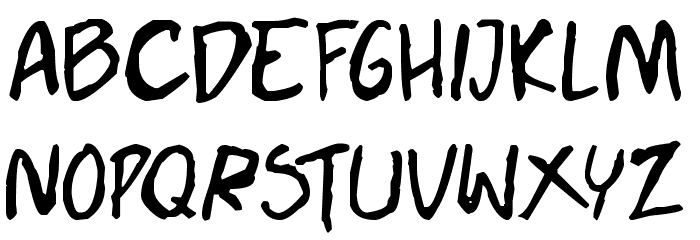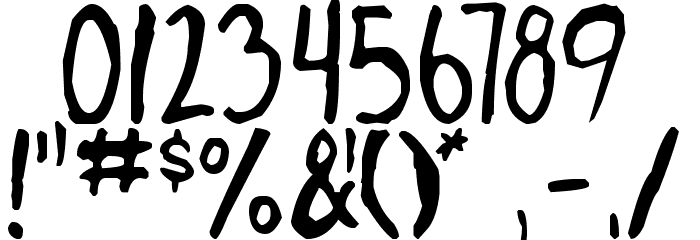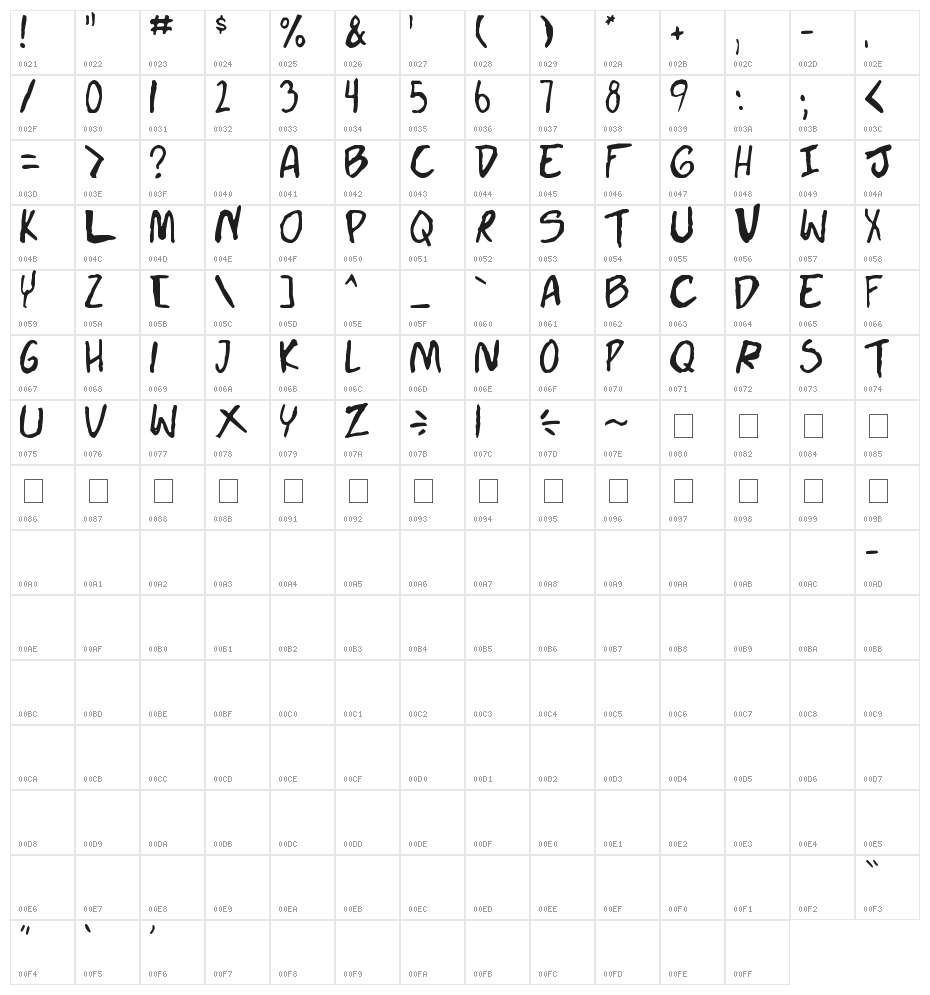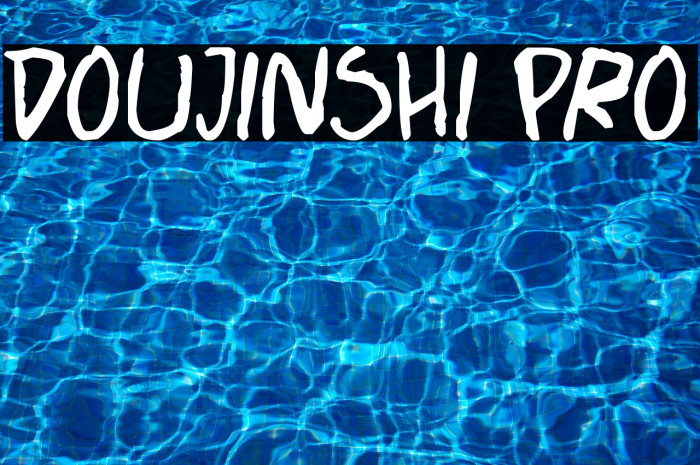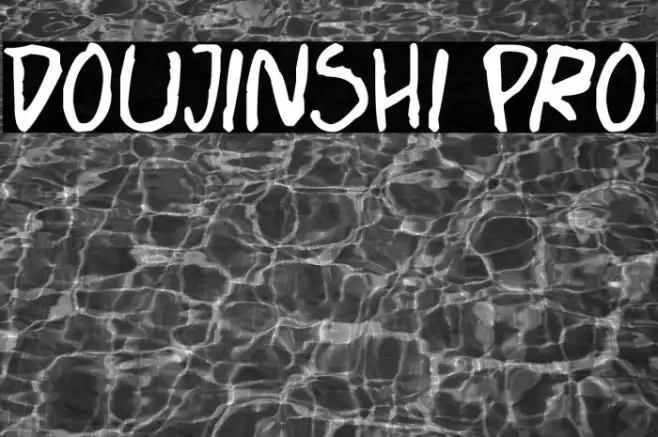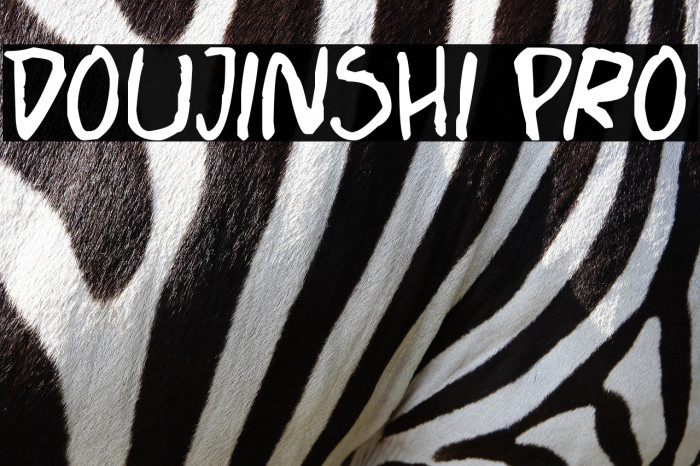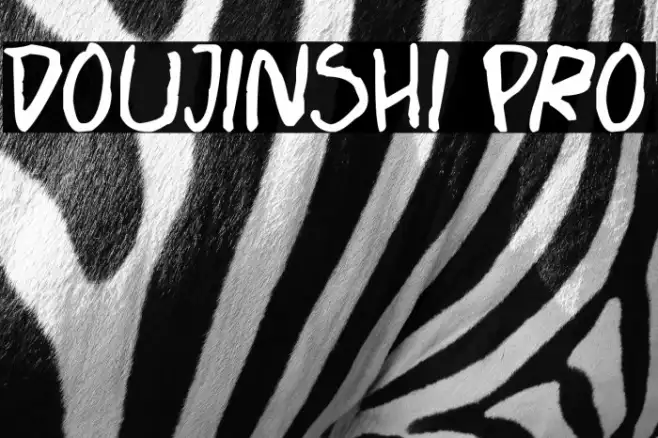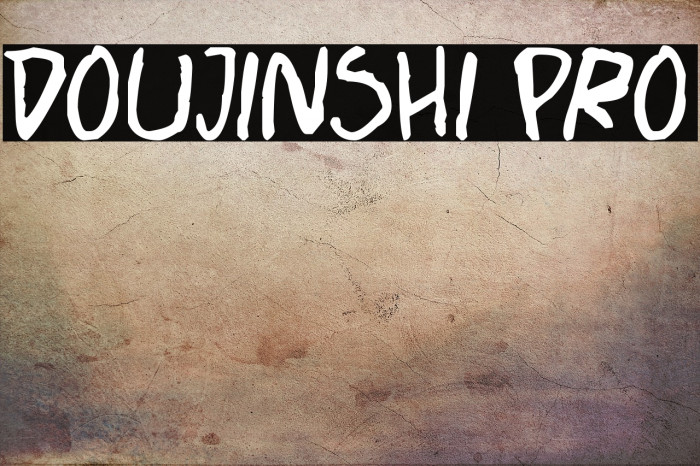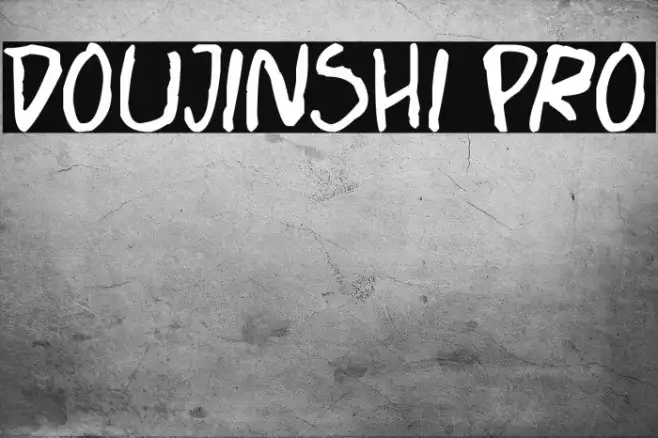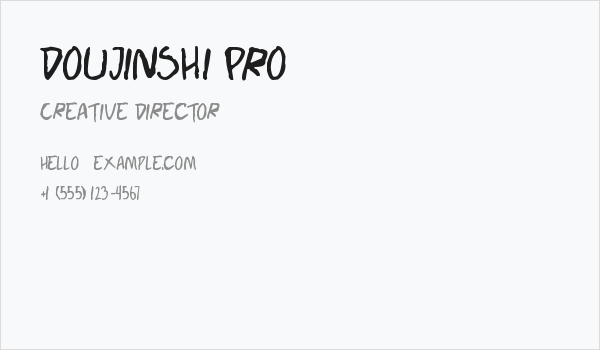
Doujinshi Pro Font
This font features a bold, handwritten style with a playful and informal appearance. The letters are irregular and slightly slanted, giving a dynamic and energetic feel. The strokes are thick and uneven, adding to the casual and spontaneous look. The uppercase and lowercase letters maintain a consistent style, while the numerals and special characters complement the overall design. This font is ideal for projects that require a personal touch or a creative flair, such as comic books, posters, or artistic designs.
A bold, handwritten font with a playful and informal style.
- Font: Doujinshi Pro
- Proposed Projects: Comic books, posters, artistic designs, personal projects, creative branding.
- Category: Handwritten
- Overall Style: Playful, Informal, Creative
- Use Case: Headlines, Creative projects, Informal designs